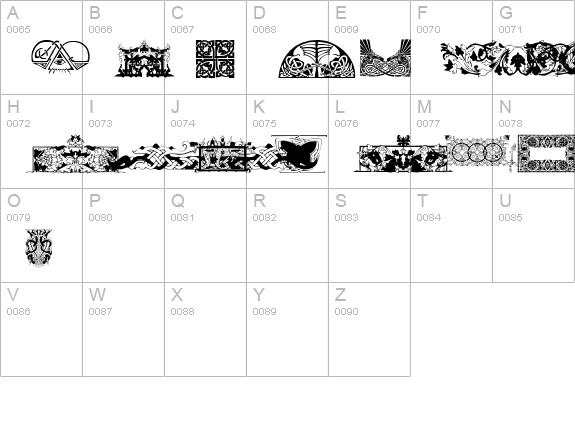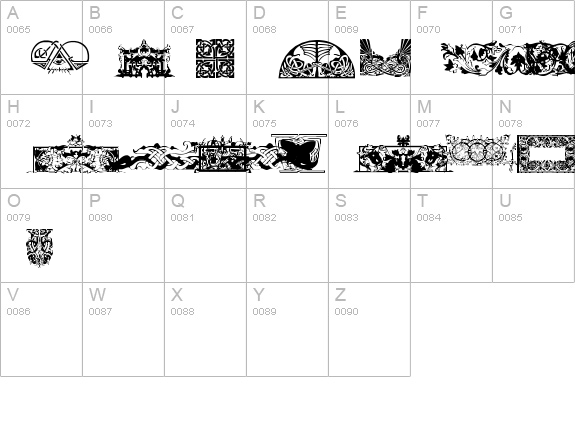
DBL Celtic Font Details
Introducing the exquisite DBL Celtic font, a captivating typeface that beautifully combines traditional Celtic design elements with a modern flair. This font exudes a sense of elegance and sophistication, making it perfect for a wide range of creative projects. DBL Celtic features intricate knotwork patterns and intricate details that give it a unique and timeless appeal. Its versatile nature allows you to use it for various design purposes, from branding and logos to invitations and greeting cards. Best of all, DBL Celtic is available for free download at FontsMarket.com, making it easily accessible to all designers and enthusiasts looking to add a touch of Celtic charm to their projects. Don't miss out on this opportunity to enhance your designs with the beauty and elegance of DBL Celtic font.